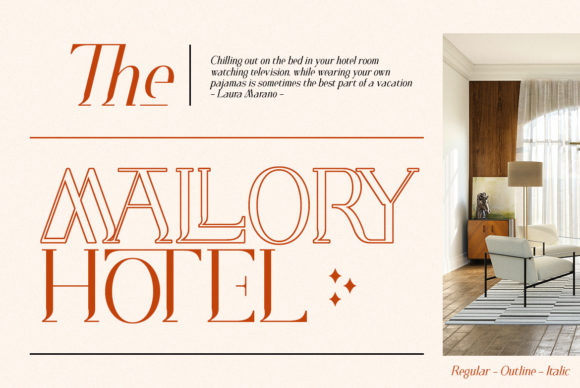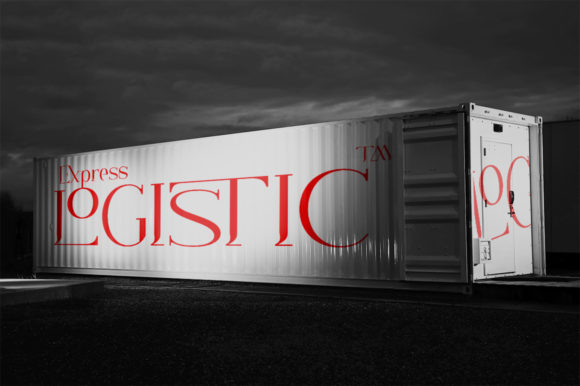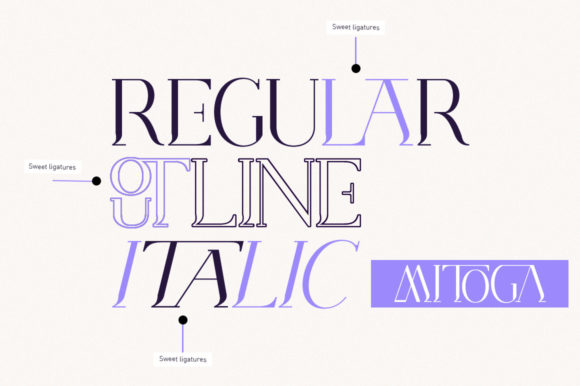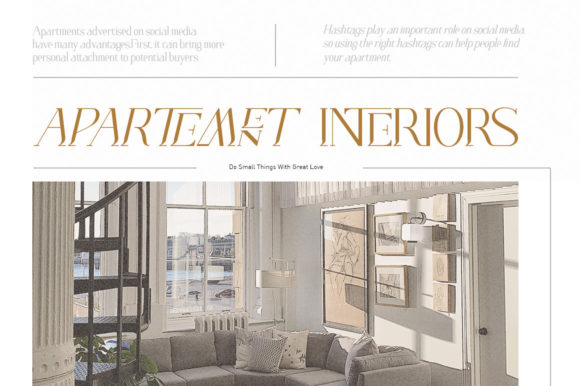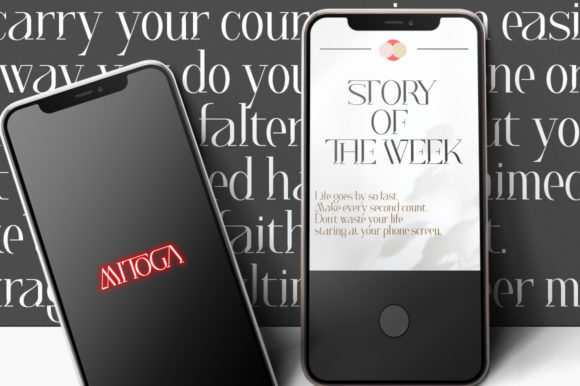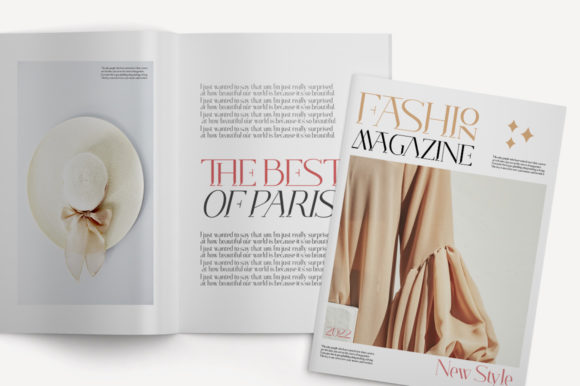
Introduction to Mitoga Display Font
As a designer, there’s nothing quite like the thrill of discovering a new font that sparks creativity and sets your imagination ablaze. For me, it was the moment I stumbled upon the Mitoga Display Font – a true game-changer in the world of typography. With its unique, eye-catching style, this font is perfect for making a statement in magazine images, wedding invitations, branding, and poster design.
What makes Mitoga Display Font so valuable for designers is its versatility and high-quality design. Whether you’re working on a creative project that requires a touch of elegance or a bold statement, this font has got you covered. Plus, its PUA encoding allows for seamless access to all the amazing glyphs and ligatures, making it a breeze to use in your designs.
Key Features of Mitoga Display Font
- High-quality display font designed for creative projects, perfect for adding a unique touch to your designs.
- Comes with a transparent background, allowing for easy integration with any background image or color.
- Available in a range of sizes, from 20px to 200px, and with resolutions up to 300 DPI for high-quality display.
- Unique characteristics include its bold, geometric style and extensive character set, making it perfect for headlines and titles.
- Designed to be highly legible and visually striking, making it an excellent choice for any creative project.
Honest Review: Mitoga Display Font
I recently stumbled upon the Mitoga Display Font, and I must say it’s a fantastic addition to my design arsenal. As a designer, I’m always on the lookout for high-quality fonts to elevate my creative projects. And Mitoga Display Font certainly delivers.
What works well is the font’s versatility and modern aesthetic. It’s perfect for titles, headings, and any other text that needs a touch of sophistication. The transparent background is also a huge plus, making it easy to customize and integrate into any design. The font is also available for free download, which is a definite bonus.
- ✨ Versatile and modern aesthetic
However, I did encounter a few limitations. The font is quite bold, which can make it difficult to read in certain situations. Additionally, the font’s design may not be suitable for all types of projects.
- ⚠️ May be difficult to read in certain situations
- ⚠️ May not be suitable for all types of projects
Overall, I’m thoroughly impressed with the Mitoga Display Font. It’s a fantastic design resource that can add a touch of elegance to any creative project. I’d highly recommend it to fellow designers looking for a high-quality font to add to their collection.
For the best results, use the Mitoga Display Font in conjunction with a high-quality image or design element. This font is perfect for creative projects that require a bold and eye-catching headline. Some common use cases include:
- Creating a logo or brand identity
- Designing a poster or flyer
- Developing a website or app
Can I use Mitoga Display Font with a transparent background?
Yes, Mitoga Display Font supports transparent backgrounds, making it perfect for use in designs that require a high level of customization and flexibility. This feature allows you to create unique and eye-catching designs that stand out from the crowd.
What is the recommended resolution for using Mitoga Display Font?
For optimal display, we recommend using Mitoga Display Font at a resolution of 300 DPI or higher. This ensures that the font appears crisp and clear, even at larger sizes.